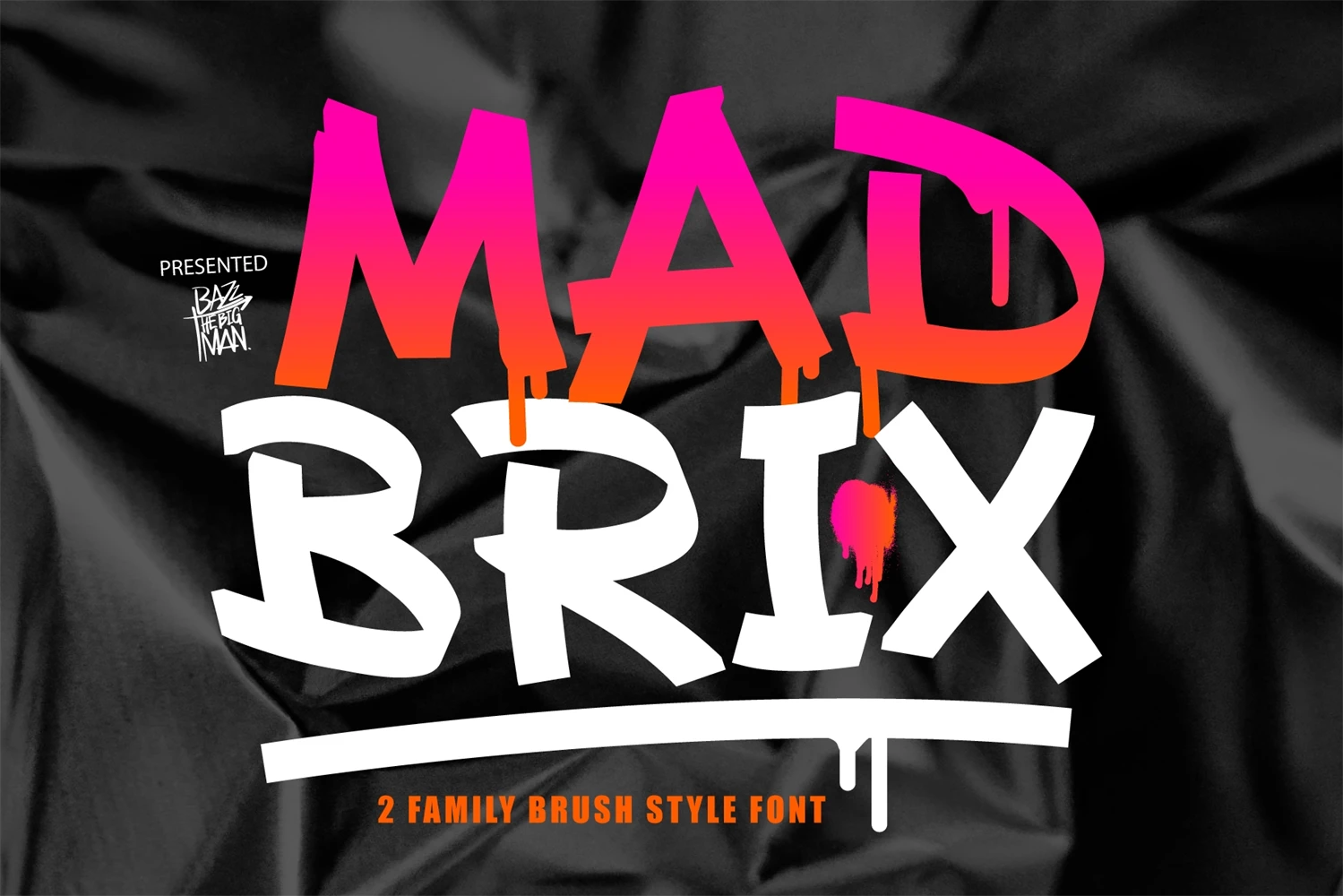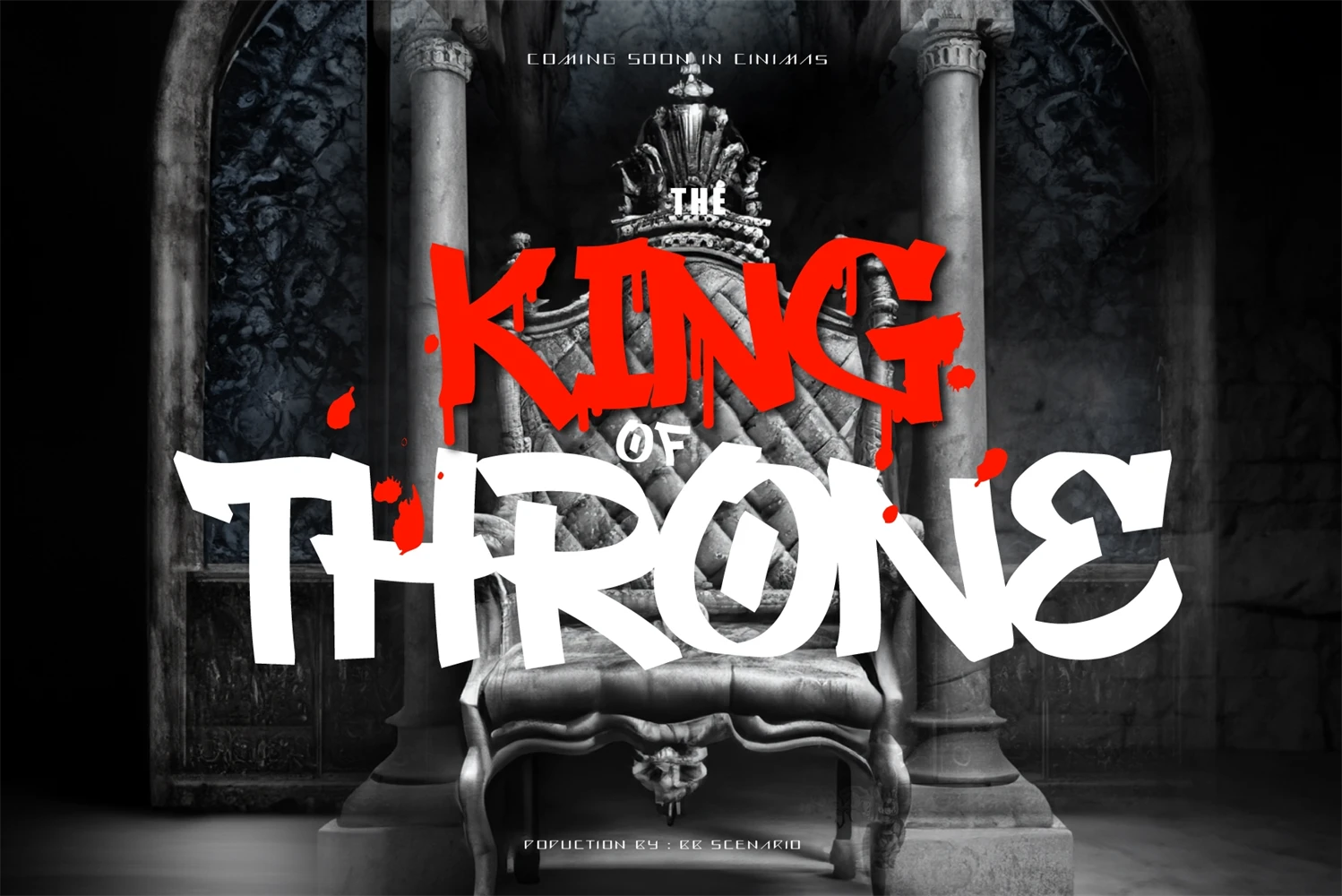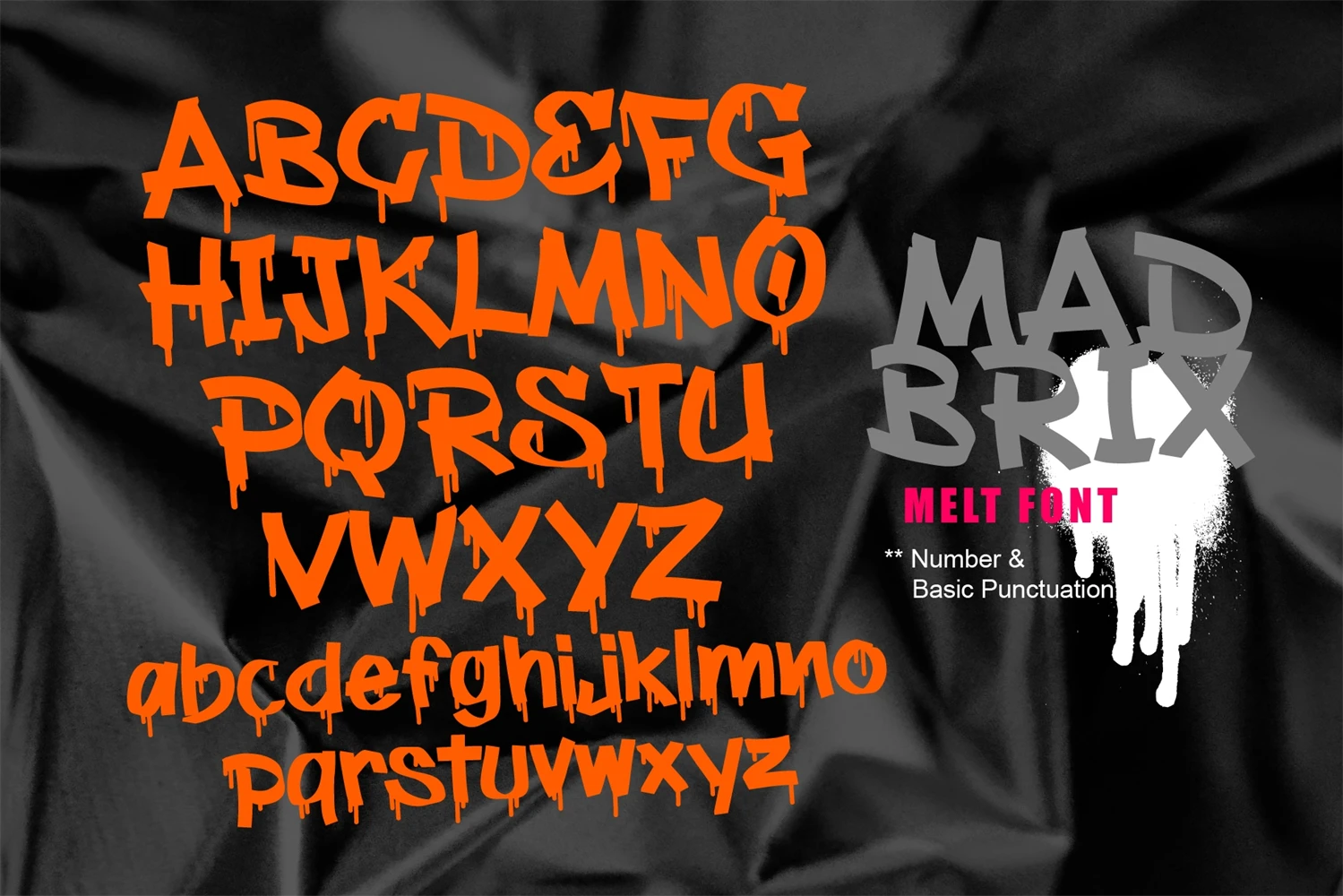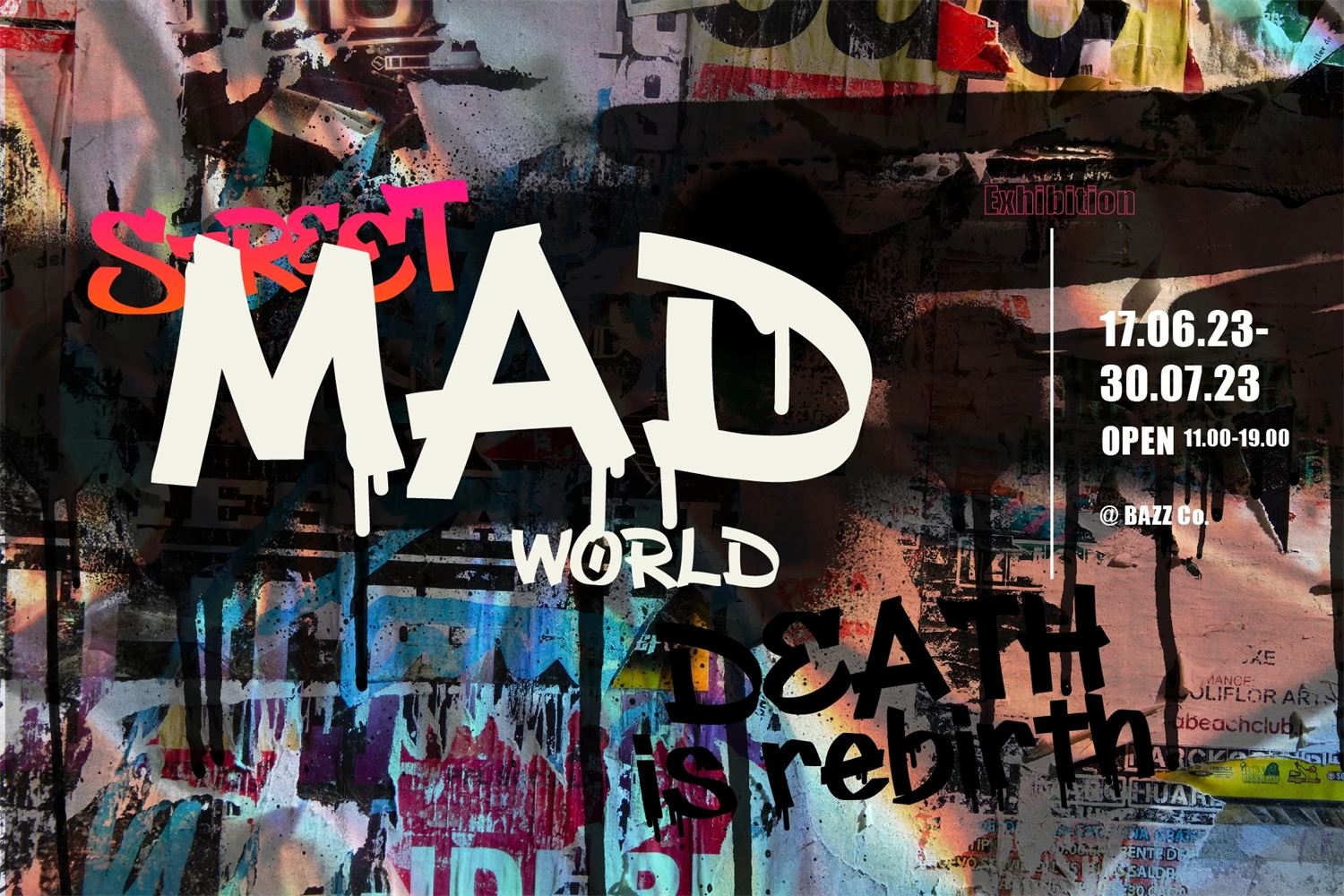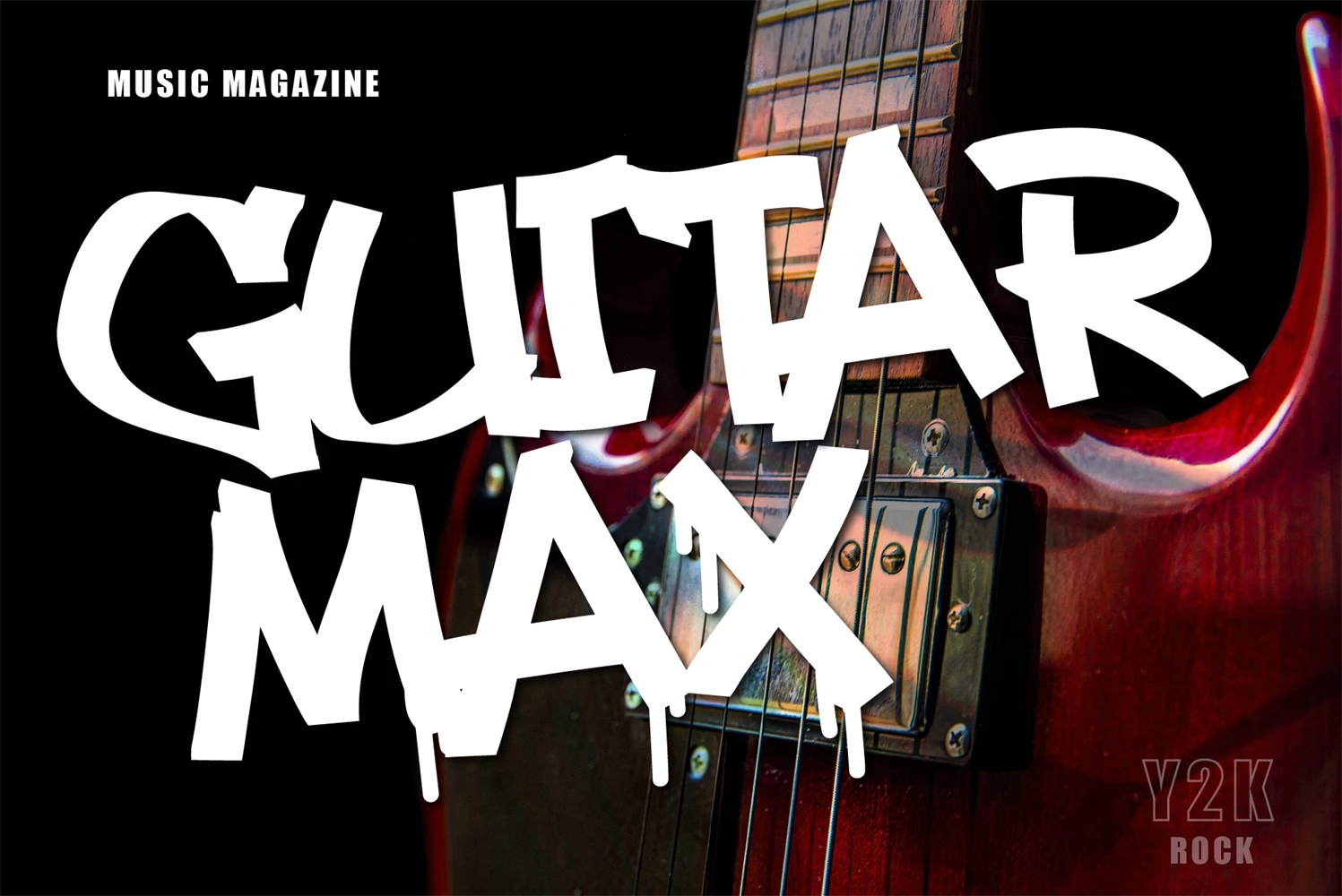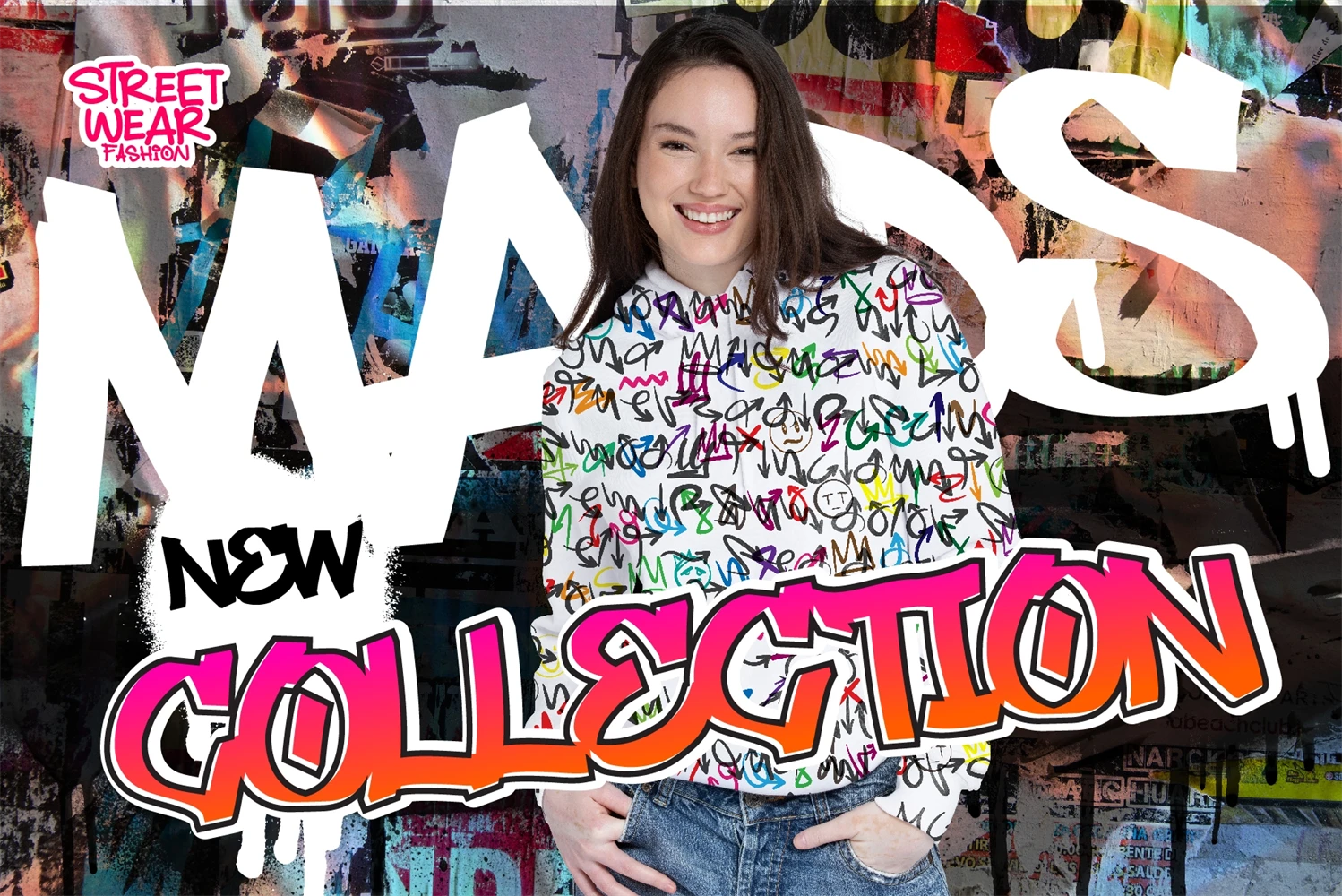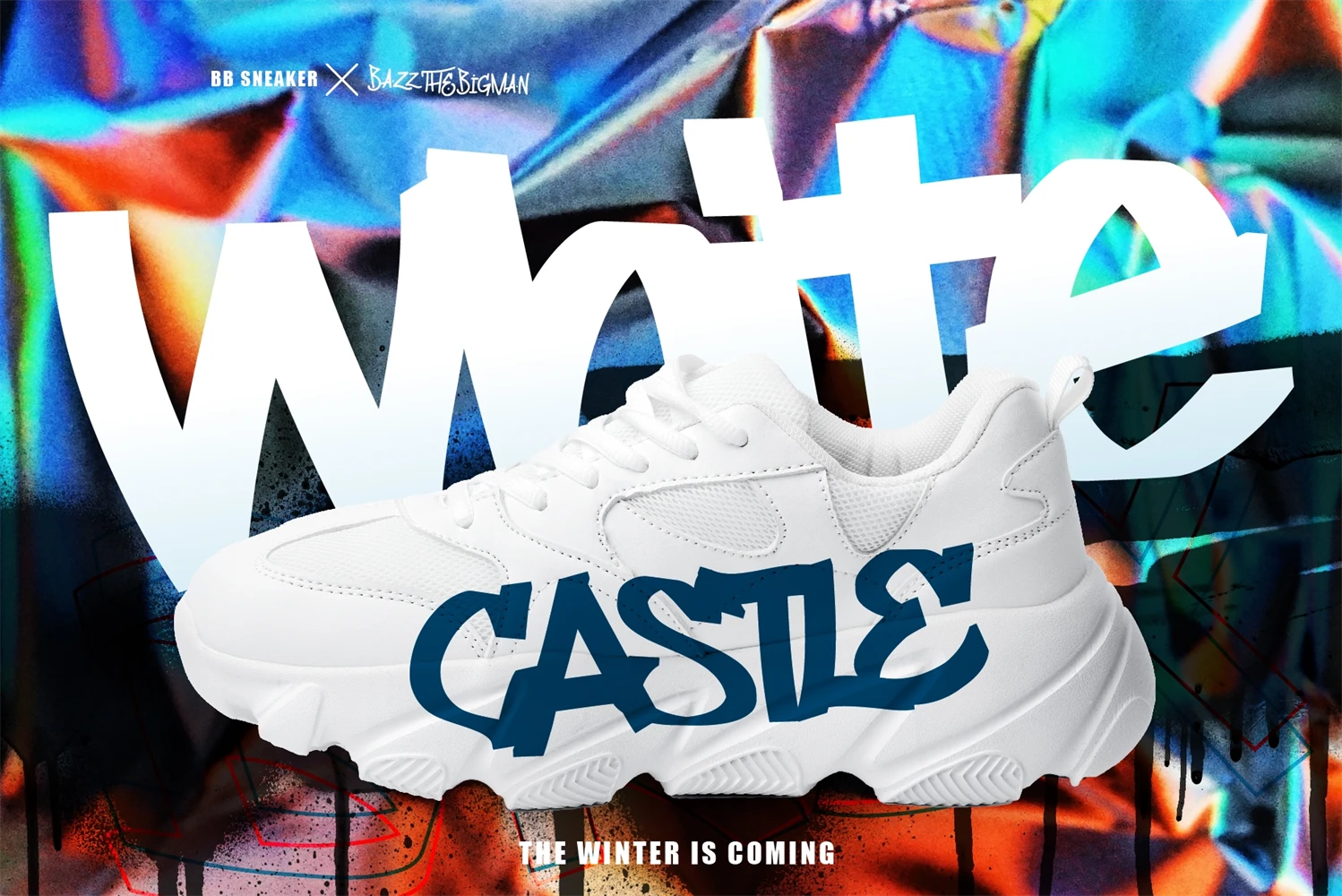
Mad Brix is an awesome, graffiti-style handwritten font that has a street art vibe.
This font is suitable for designs such as t-shirts, sportswear, logos, advertisements, clothing, and more.